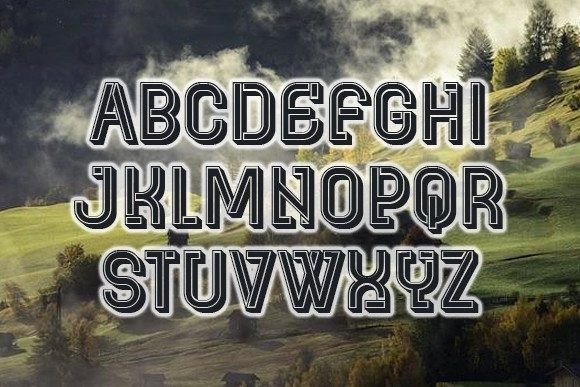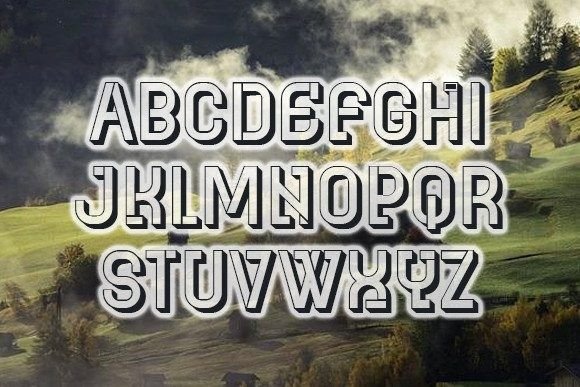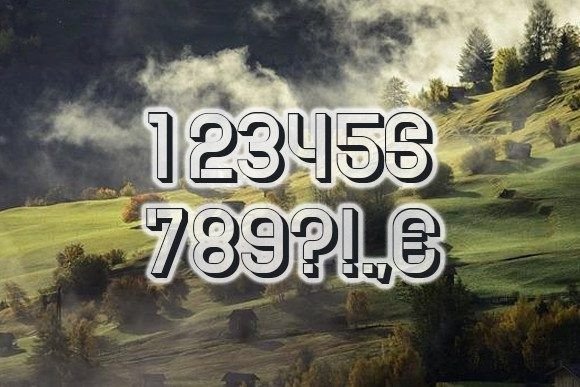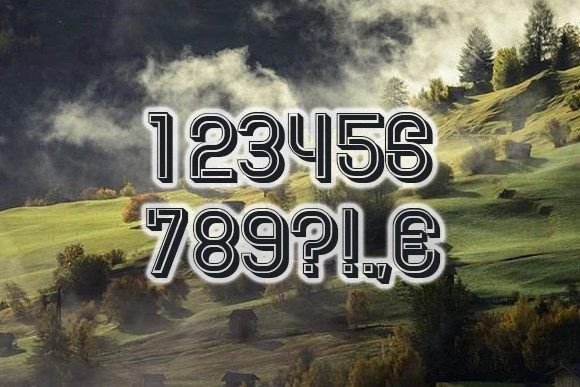
Introduction to Byzantia Font
As designers, we’ve all been there – staring at a blank canvas, trying to bring our creative vision to life. The right font can make all the difference, elevating our design from good to great. And that’s exactly what the Byzantia Font offers – a high-quality design resource that’s sure to impress.
With its unique, 3D-like appearance, the Byzantia Font is perfect for designers looking to add some visual interest to their creative project. Whether you’re working on a branding campaign, a website, or a social media graphic, this font is sure to turn heads. And the best part? It’s available for free download, making it an accessible design tool for designers of all levels.
One of the standout features of the Byzantia Font is its transparent background, which makes it incredibly versatile and easy to use. From adding a pop of color to creating a bold, eye-catching headline, this font is a valuable addition to any designer’s toolkit.
Key Features of Byzantia Font
- High-quality design resource for creative projects, offering a unique aesthetic and style.
- Includes a wide range of glyphs, making it suitable for various languages and scripts.
- Designed with precision and attention to detail, resulting in a crisp and clear font at 300 DPI resolution.
- Perfect for use in graphic design, digital art, and other creative projects where a distinctive and elegant font is required.
Honest Review: Byzantia Font
As a designer, I’m always on the lookout for high-quality design resources to elevate my creative projects. Recently, I came across the Byzantia Font, and I was excited to give it a try.
Here are some things that work well about the Byzantia Font:
- ✨ Elegant and sophisticated design style, perfect for luxury brands or high-end projects
- ✨ Wide range of weights and styles to choose from, making it a versatile design resource
However, I did encounter some limitations with the Byzantia Font:
- ⚠️ Limited language support, which may be a concern for designers working on projects that require specific language support
- ⚠️ No transparent background option, which can be a limitation for designers who want to use the font on images or graphics
Overall, the Byzantia Font is a solid addition to any designer’s toolkit. While it may have some limitations, its high-quality design and versatility make it a great resource for creative projects. With a free download available, it’s definitely worth checking out.
Tips for Getting the Most Out of Byzantia Font
Experiment with different font sizes and styles to create a unique look. Use the font in combination with other design elements, such as images and graphics, to create a visually appealing design. Take advantage of the font’s transparent background feature to create a seamless design experience.
The Byzantia Font is perfect for a variety of creative projects, including presentations, reports, logos, and other design elements. Its high-quality design and transparent background make it a valuable resource for designers and creatives.